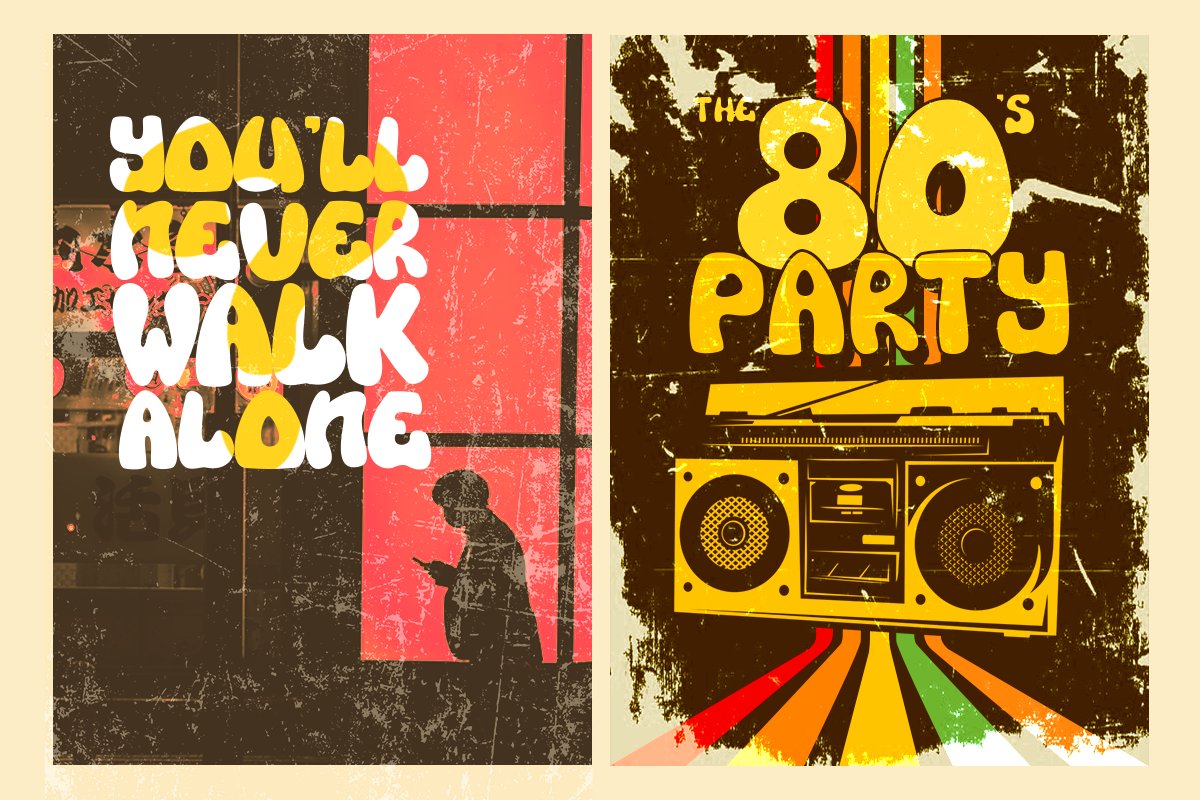
Various Y2K Display Font
Introducing Various Y2K Display Font, a one-of-a-kind typeface with a distinct 00s style, inspired by the vintage charm of hand-painted retro signs. Embodying the essence of the 60s, 70s, 80s, 90s, and the iconic Y2K era, Various Font brings a delightful retro touch to your creative projects.
Immerse yourself in the nostalgia of bygone decades as Various Font captures the spirit of each era, adding a nostalgic vibe to your designs. Its unique characteristics and vintage flair will transport you back in time, allowing you to create captivating visuals that evoke a sense of nostalgia.
Let Various Y2K Display Font take your designs to the next level.